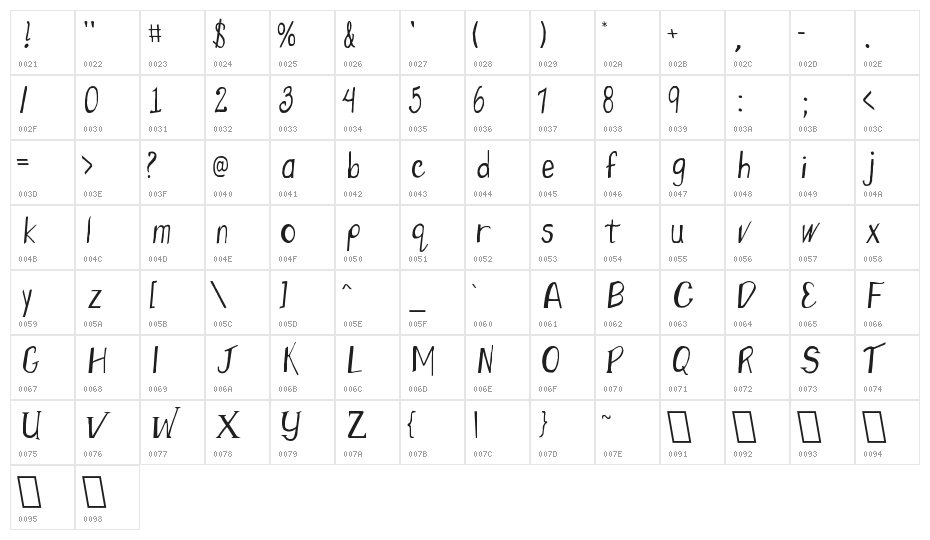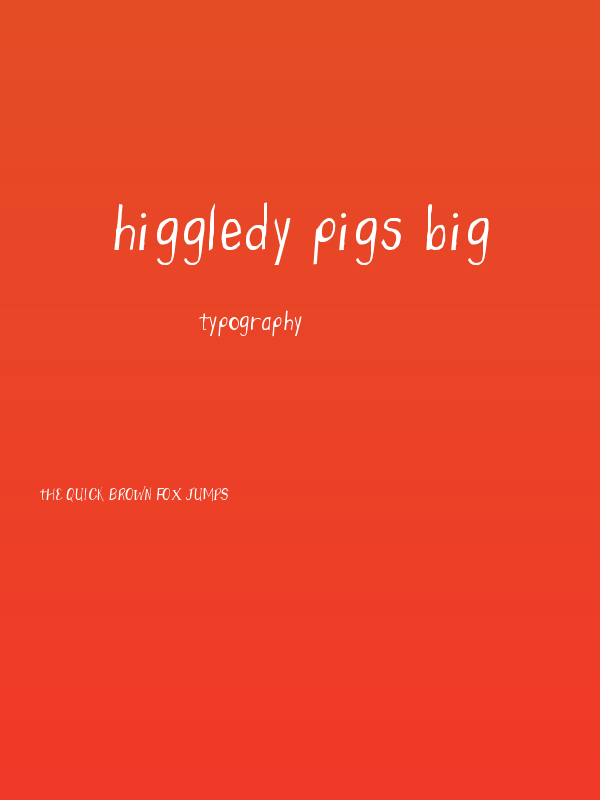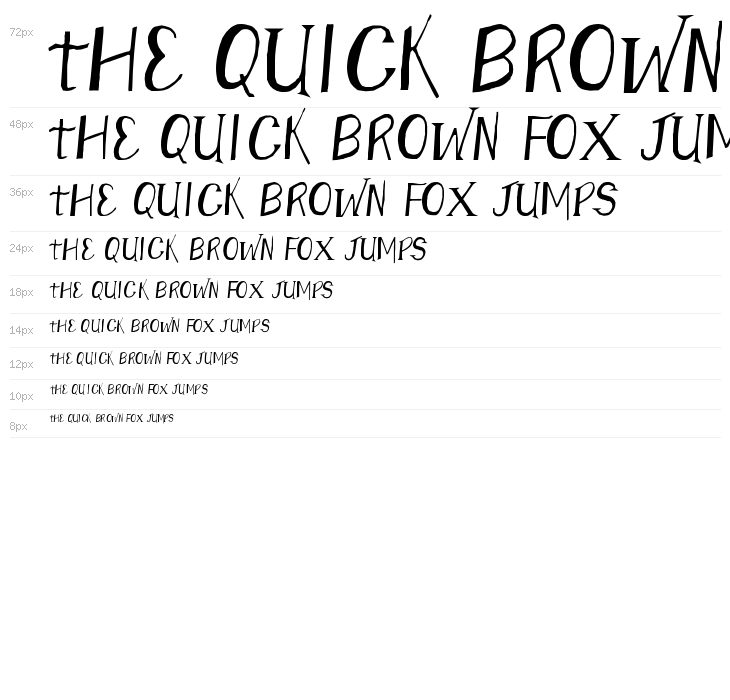
Higgledy Pigs Big Font
Higgledy Pigs Big Description
This font features a playful and whimsical style with a handwritten appearance. The letters are slightly slanted, giving a dynamic and energetic feel. The strokes vary in thickness, adding a sense of movement and liveliness. The uppercase and lowercase letters maintain a consistent style, with some characters having unique, quirky shapes that enhance the font's charm. The numbers and special characters are designed to match the overall playful aesthetic, making them suitable for creative and informal contexts.
| Use Case | Logos, Headlines, Informal Text |
| Proposed Projects | Ideal for children's books, playful branding, greeting cards, and creative posters. |